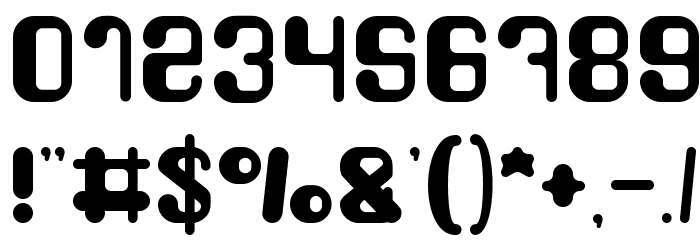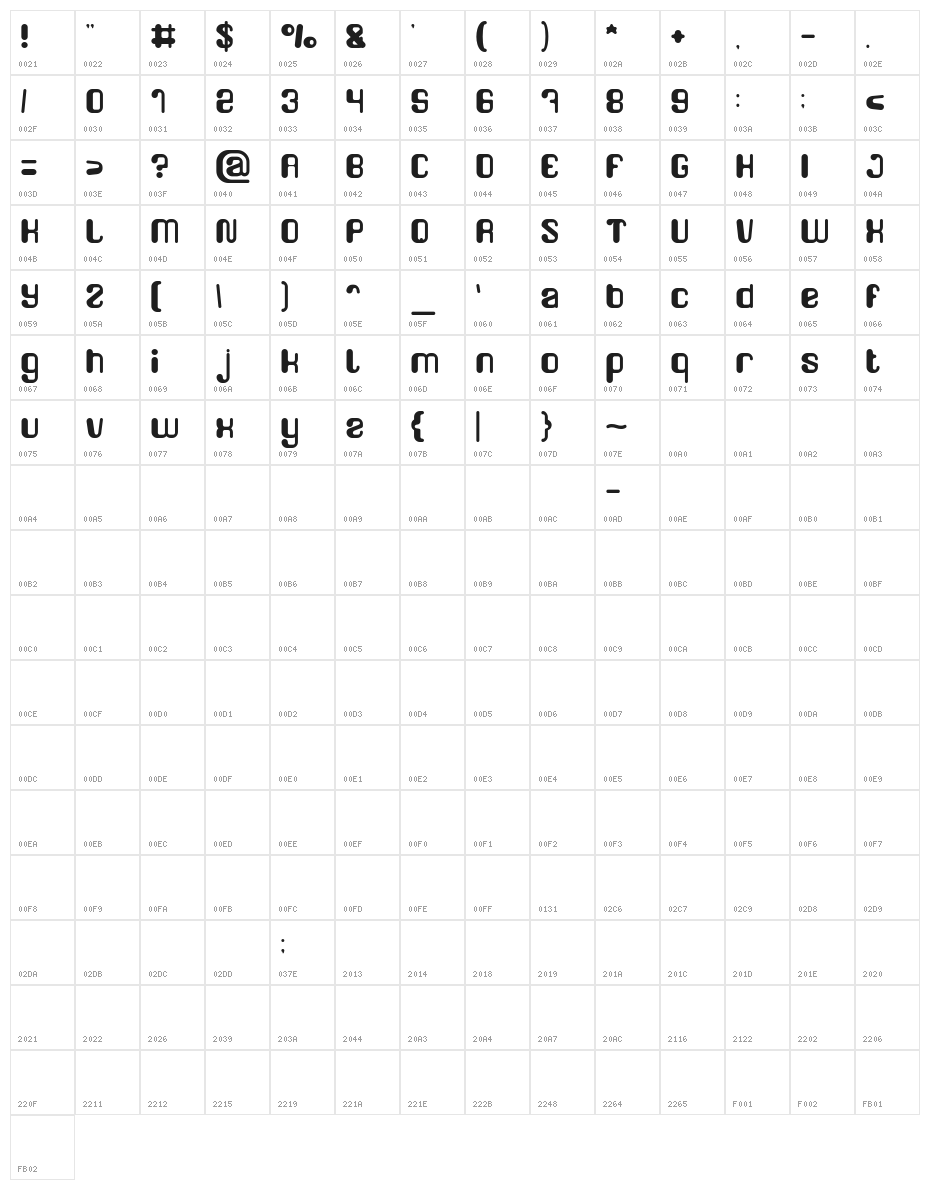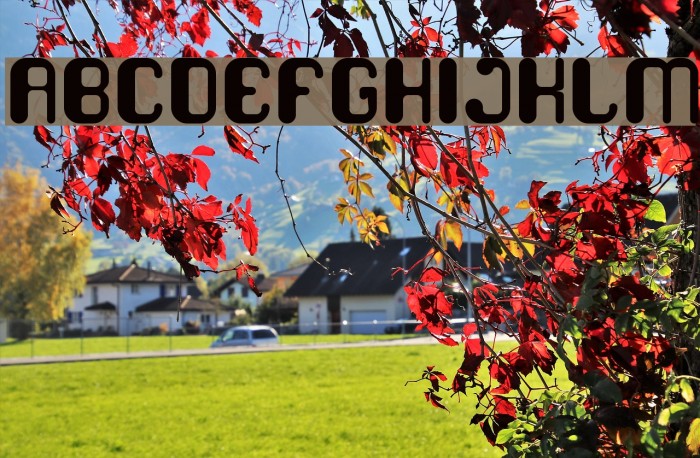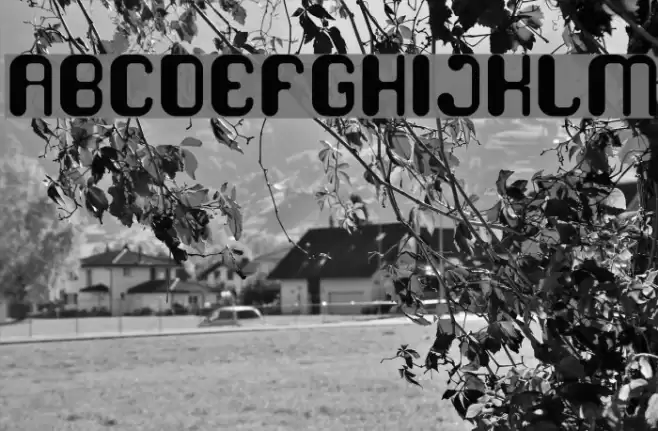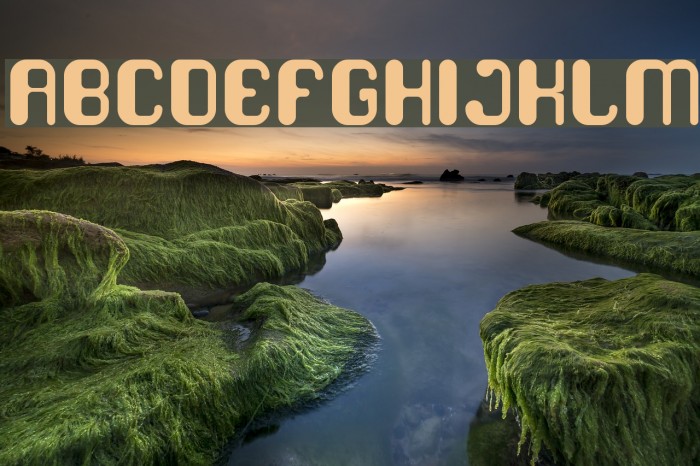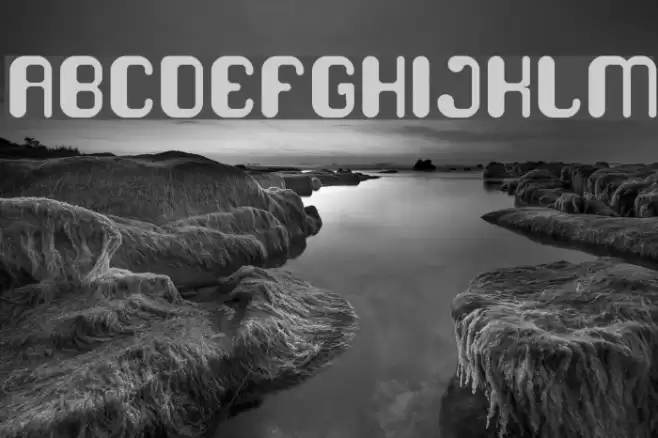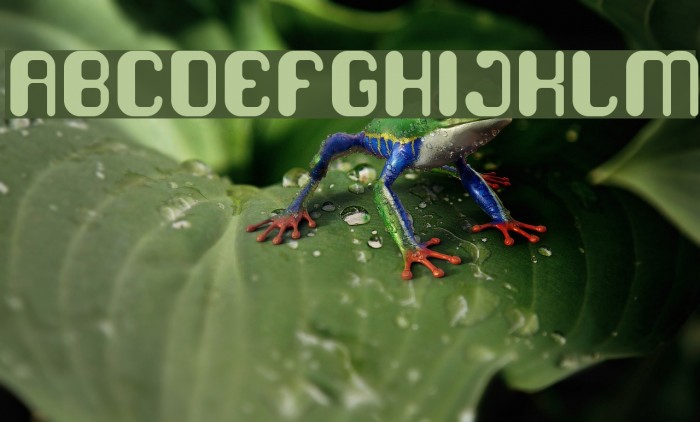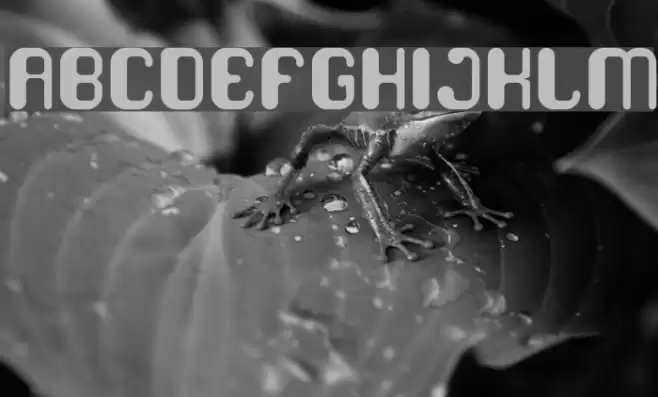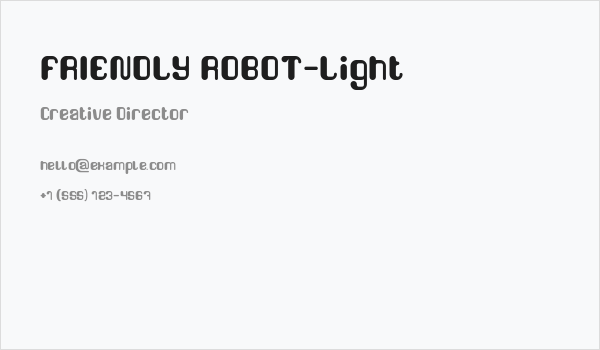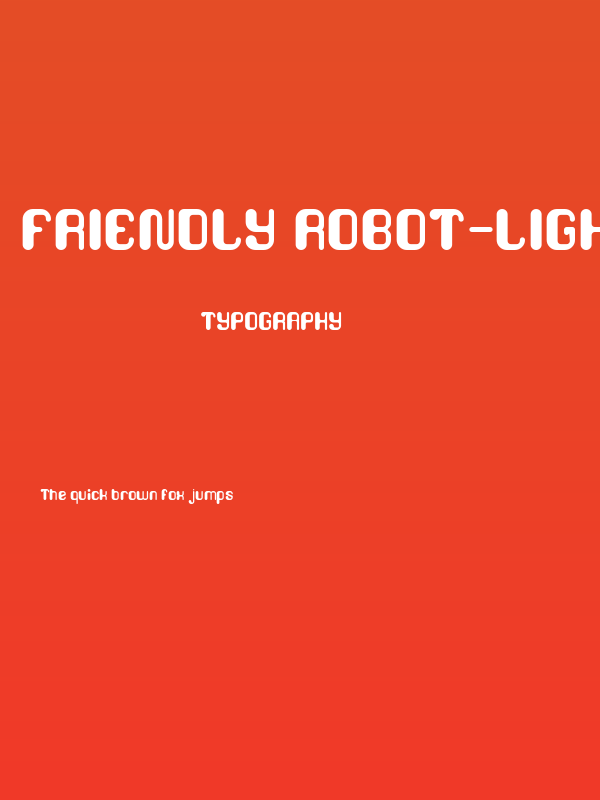
FRIENDLY ROBOT-Light Font
FRIENDLY ROBOT-Light Description
This font features a playful and futuristic design with rounded edges and a friendly appearance. The characters are bold and slightly condensed, giving them a modern and approachable look. The uppercase and lowercase letters maintain a consistent style, with smooth curves and a uniform stroke width. Numbers and special characters are designed to match the overall aesthetic, ensuring a cohesive appearance across all text. The font's unique style makes it suitable for projects that require a contemporary and engaging feel.